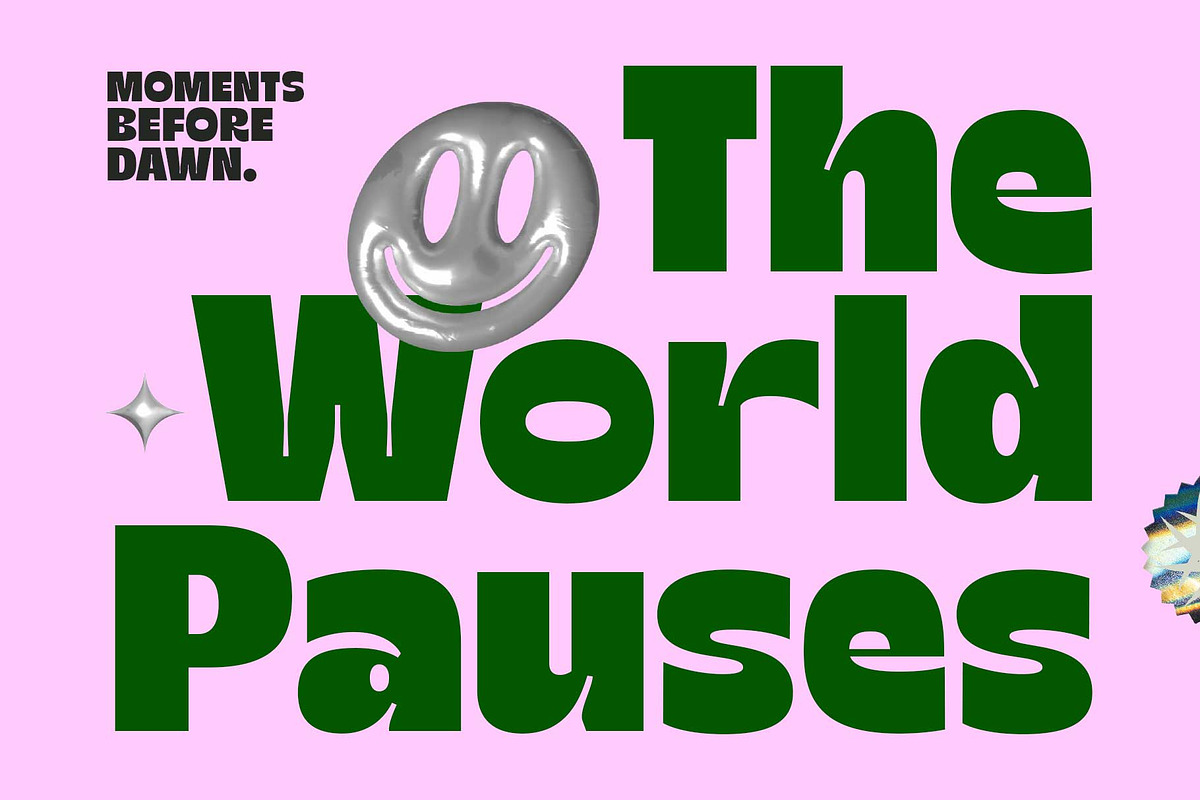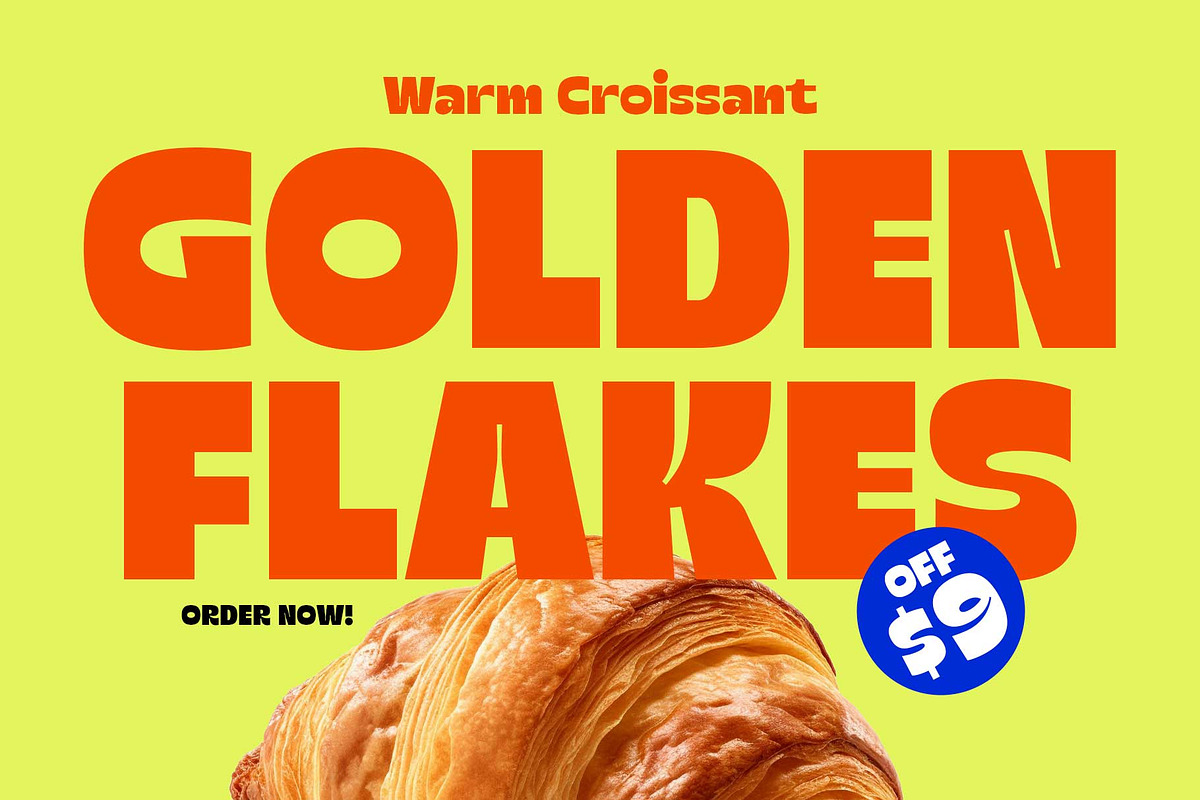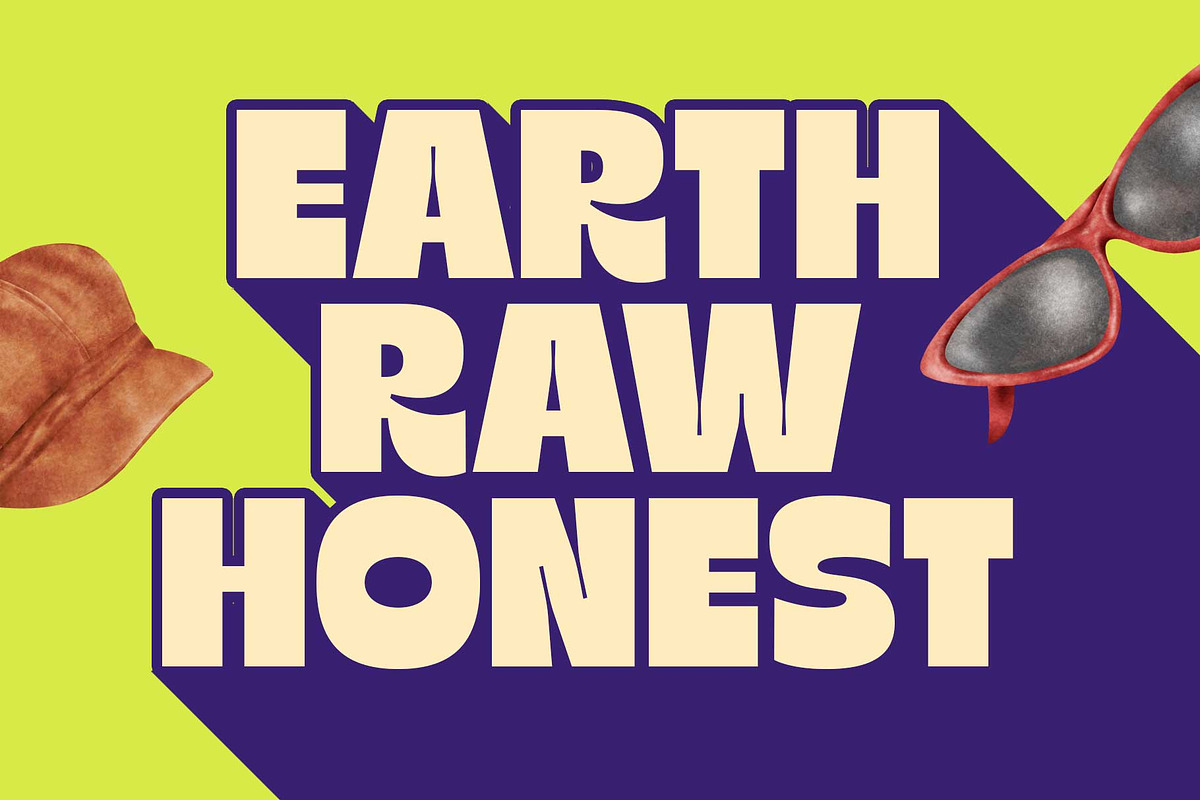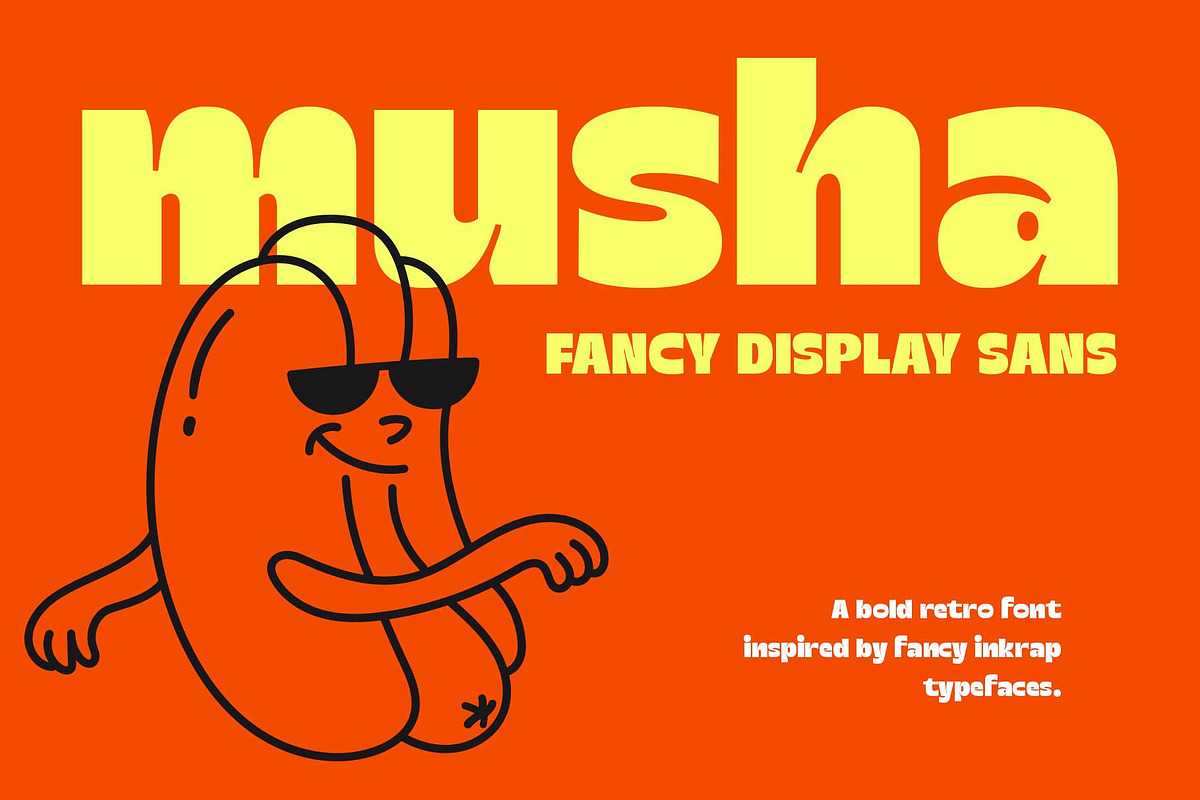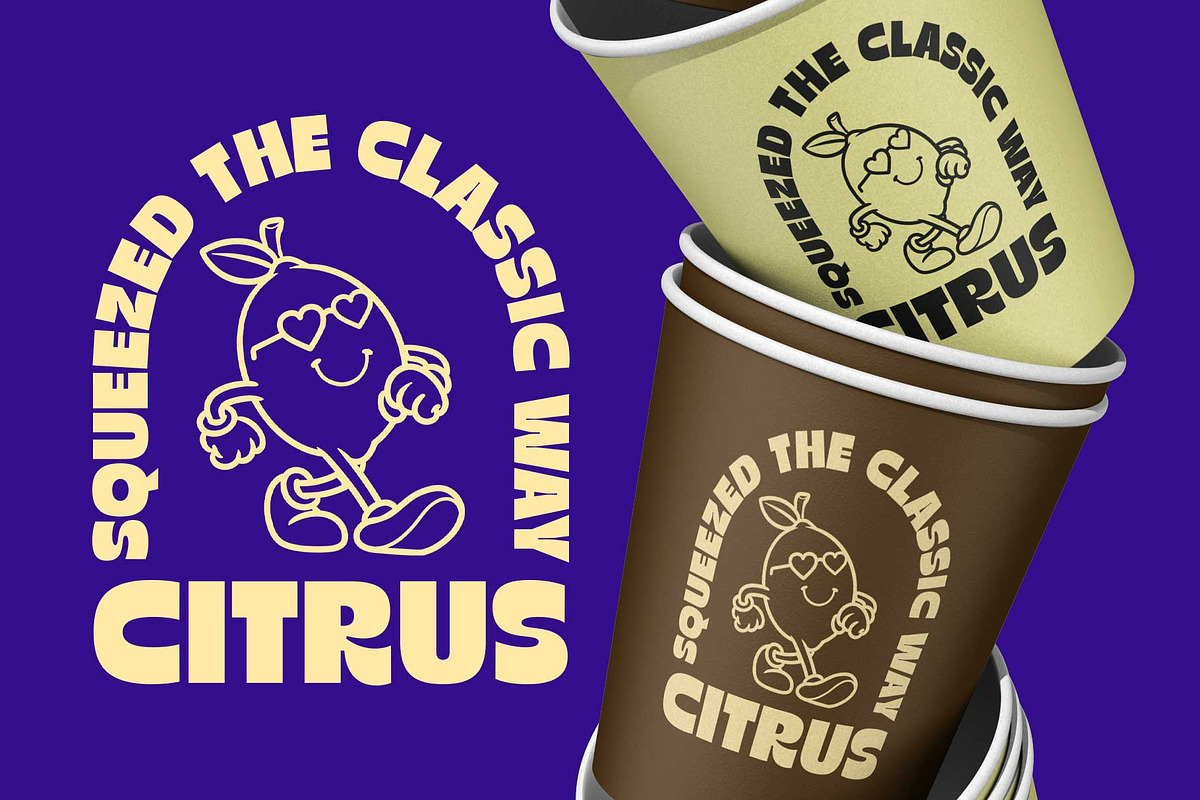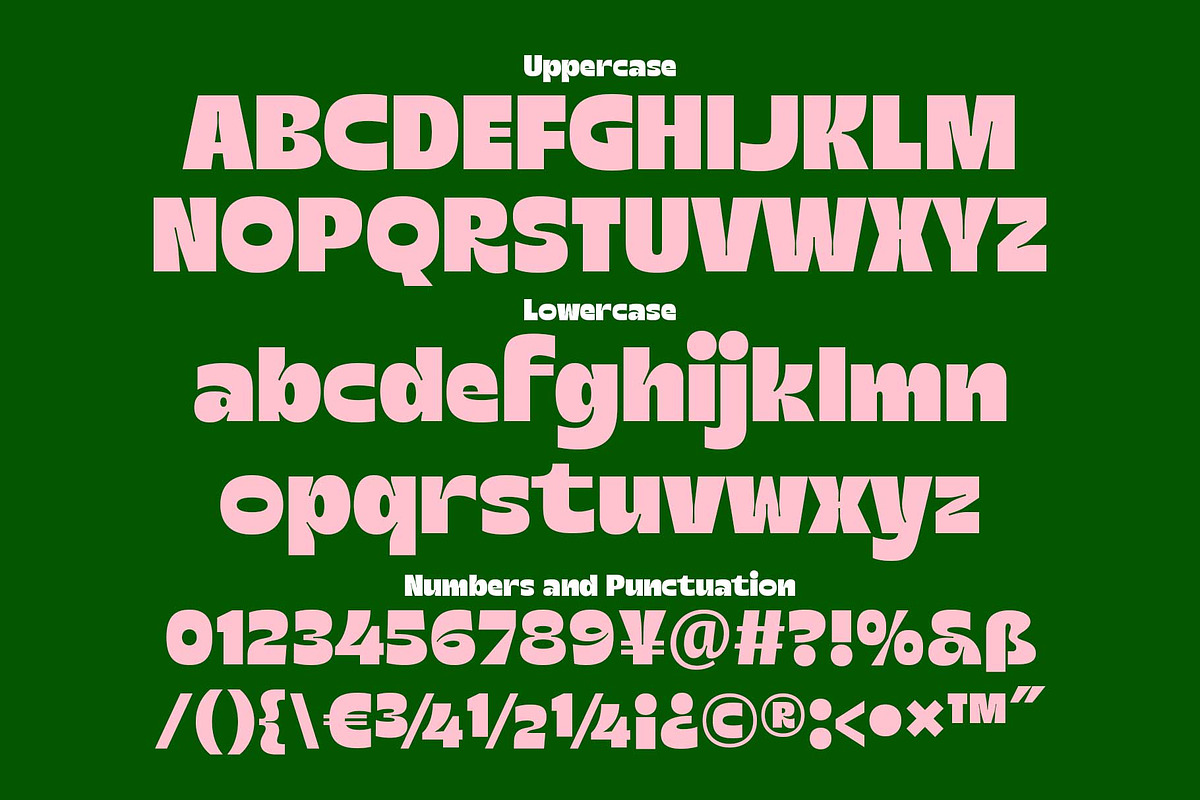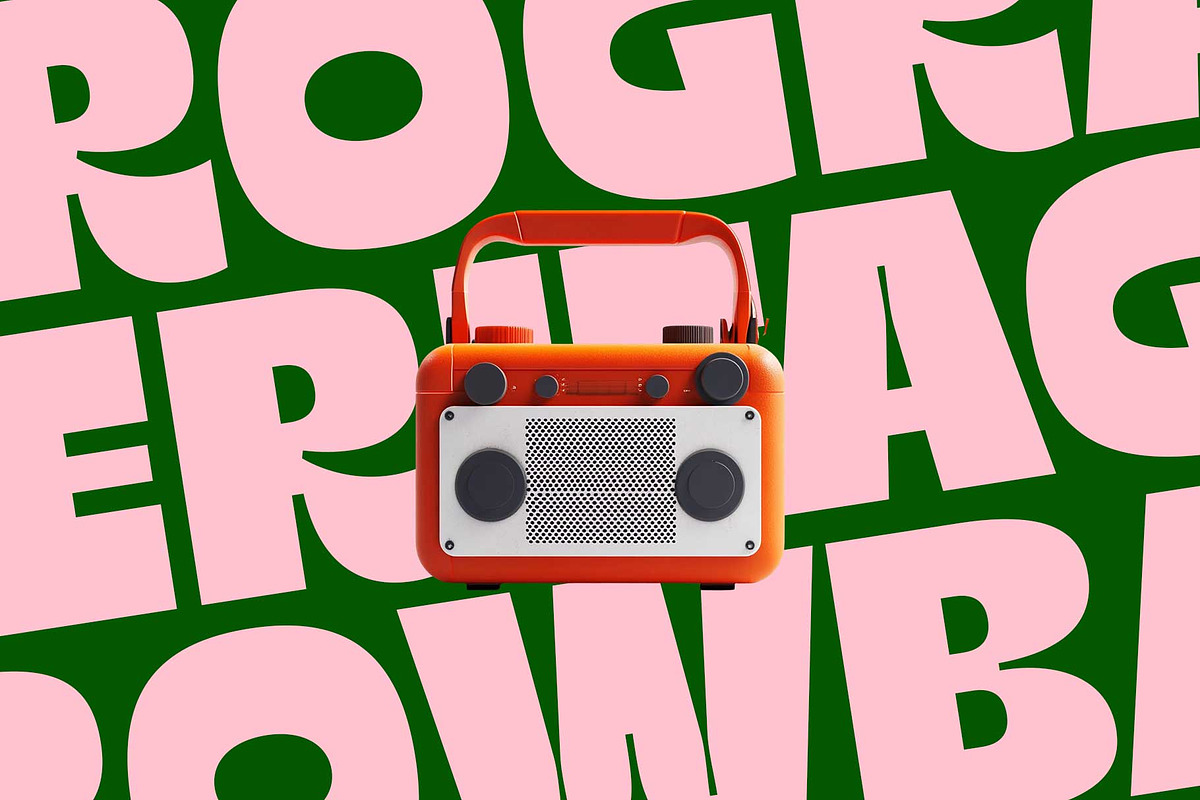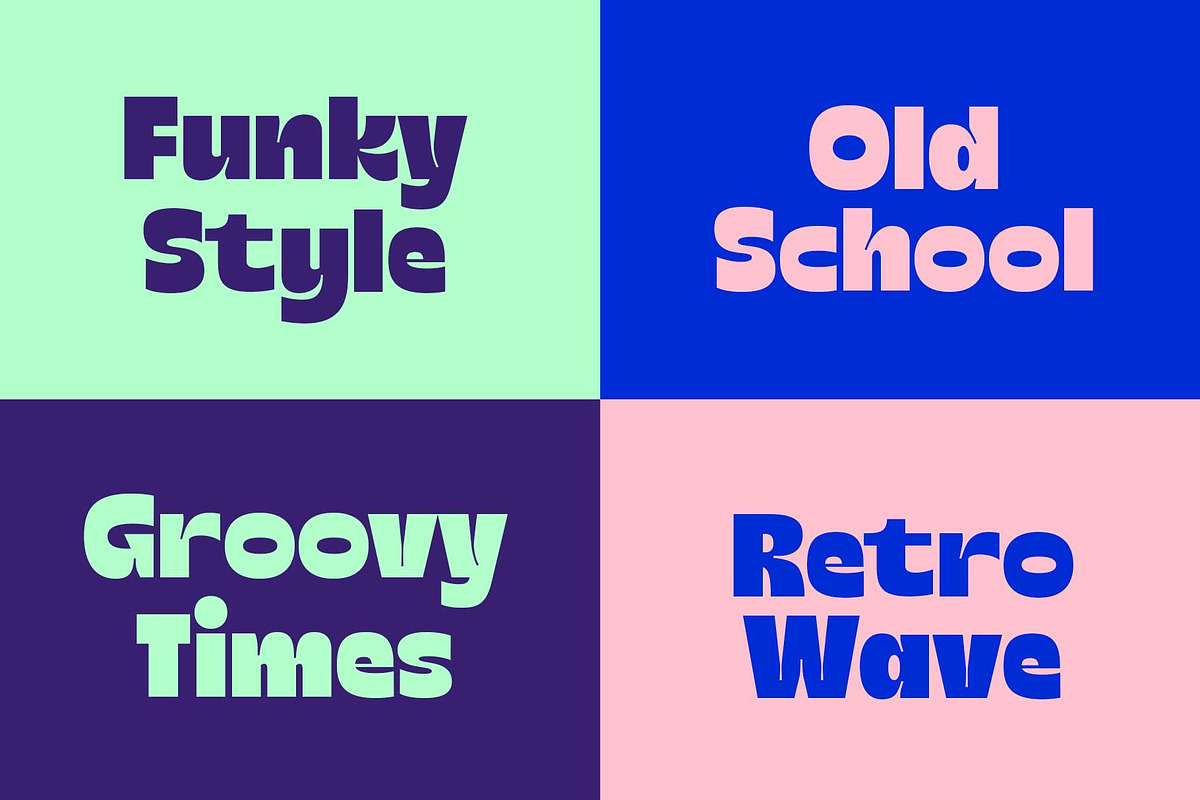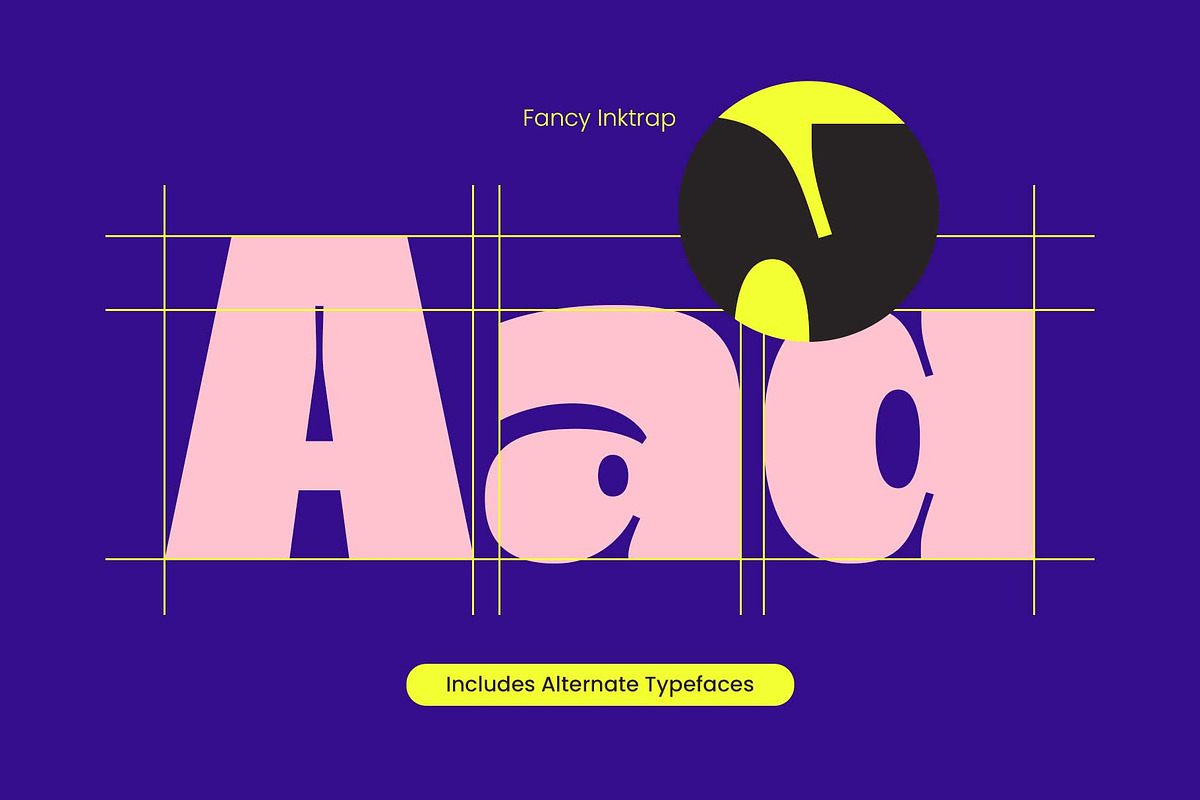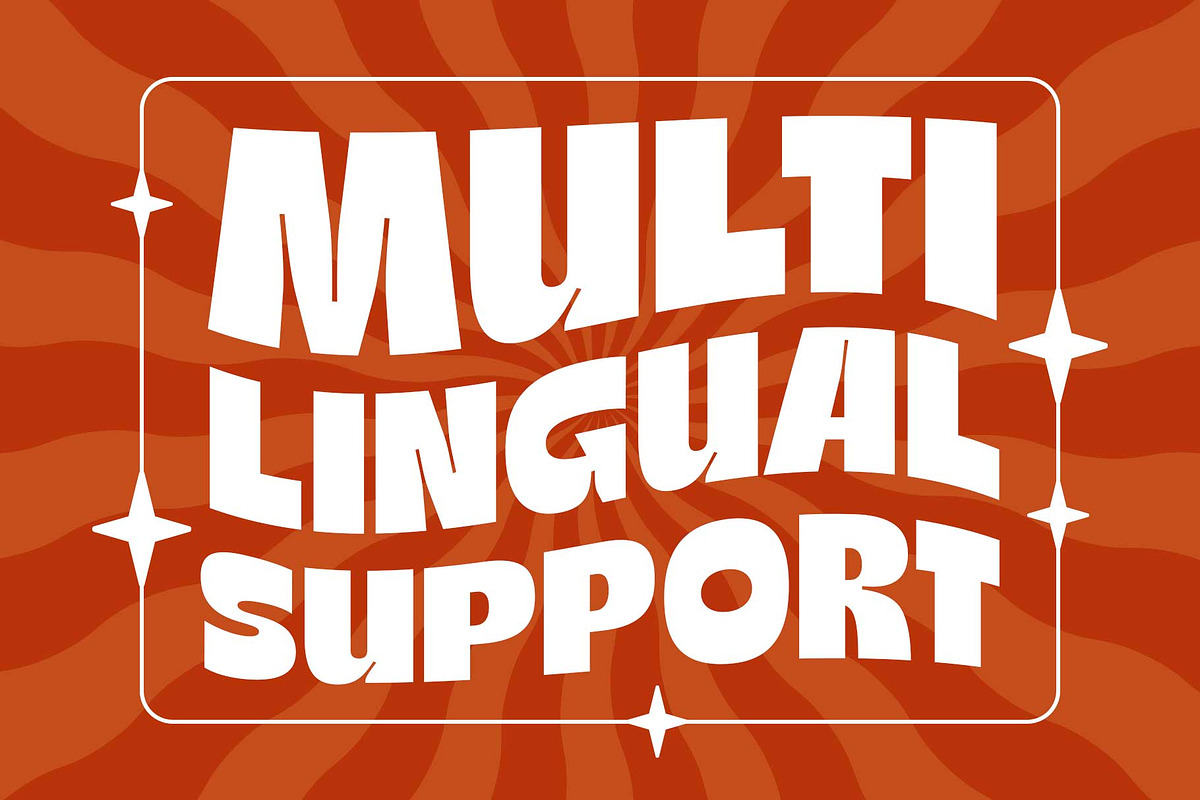
Musha - Bold Display Sans
Musha is a bold, playful display sans inspired by vintage ink-trap typography, retro packaging, and groovy 70s–90s visual culture. Thick curves, juicy counters, and unexpected inner cuts give it a loud personality while keeping it clean and highly legible at large sizes.
It’s the kind of typeface that doesn’t whisper — it announces.
From funky coffee branding and citrus soda labels to trendy posters, motion graphics, and editorial headlines, Musha brings instant character to any layout that needs warmth, punch, and nostalgic flair. Musha comes packed with alternate characters to help you customize your typography and avoid repetition. Available in Regular and Shadow style!
- Numbers & symbols
- Stylistic alternates